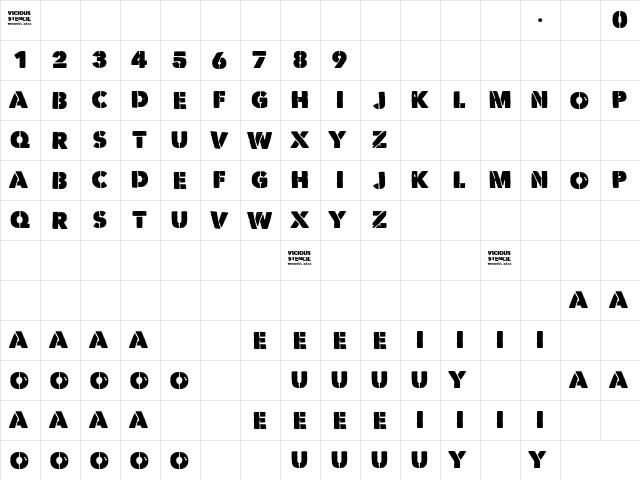
Vicious Stencil Regular
Design Context for Vicious Stencil Typeface
Vicious Stencil has the rough pragmatism of spray-painted stencil signage, adding a raw, street-level authenticity to designs.
Ideal for industrial branding, streetwear, military-adjacent aesthetics, and urban signage projects.
Pro Tip: Pair Vicious Stencil with raw, utilitarian design elements — exposed concrete textures, flat colour, and minimal ornamentation suit it well.